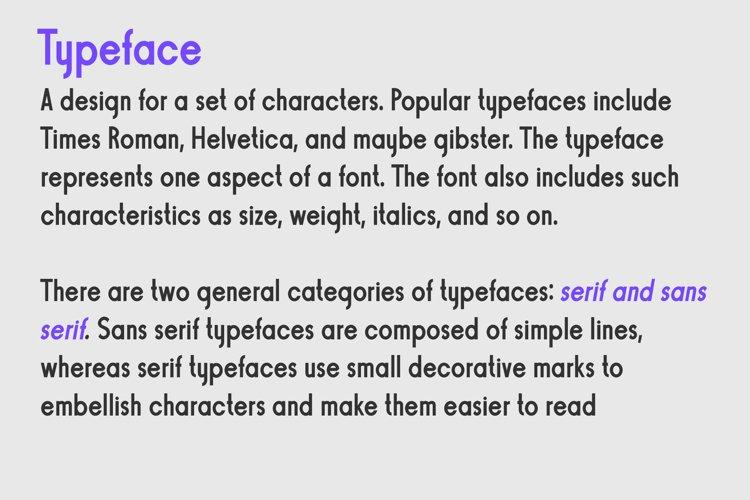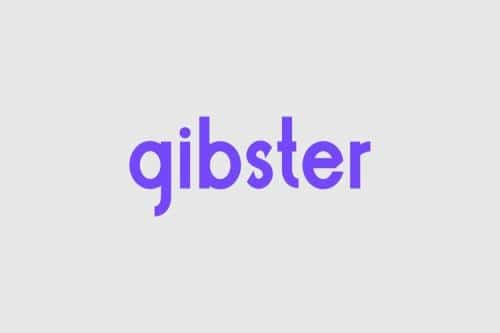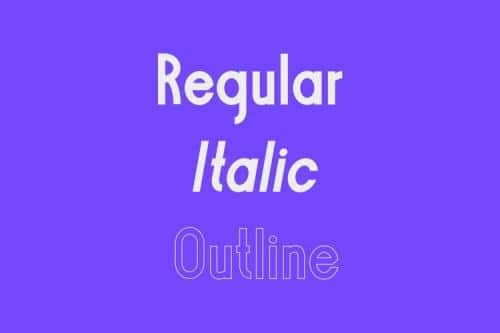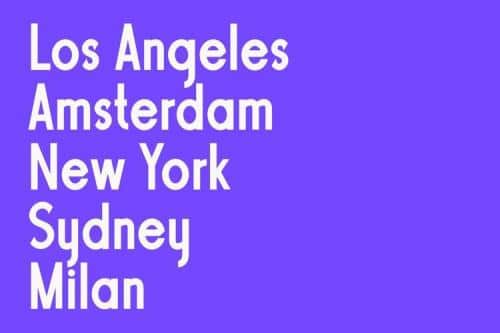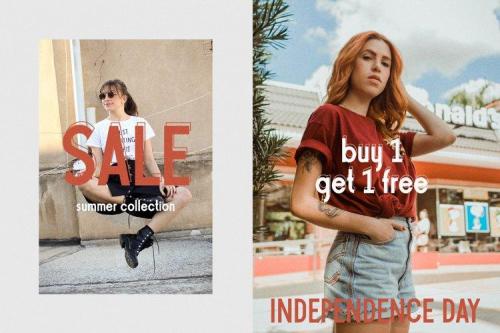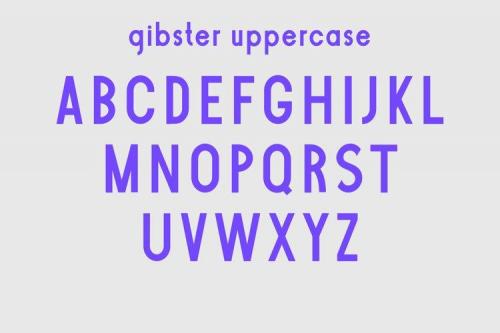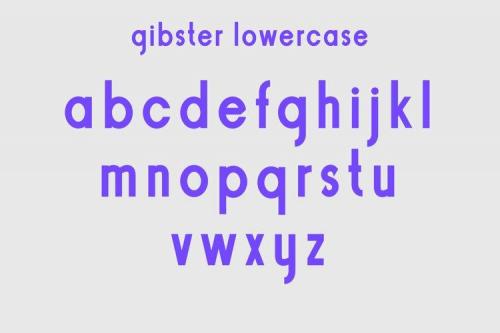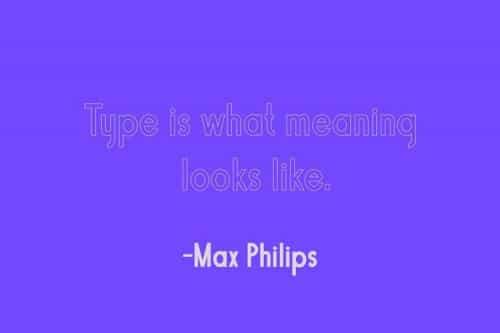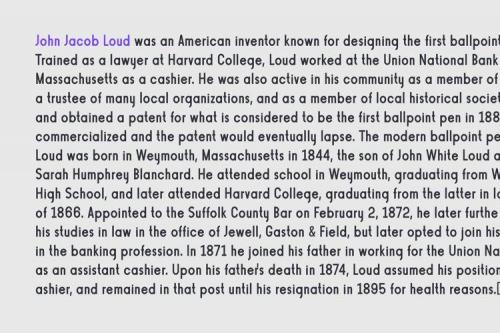
Gibster is a sharp yet simple lettered sans serif font. It can easily be matched to an incredibly large set of projects, so add it to your creative ideas and notice how it makes them stand out!
They all work perfectly with each other and are the ideal accompaniment to scripts and serifs.
- Designer: Wellscript Studio